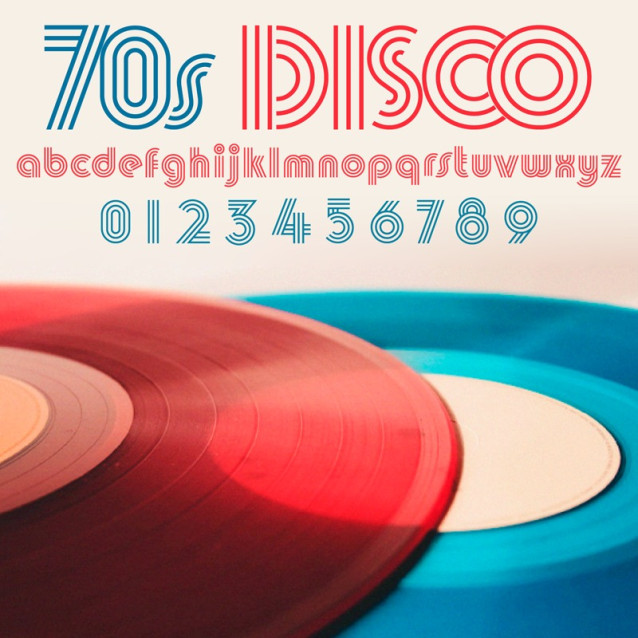
70s Disco Typeface
70s Disco Typeface a nostalgic multi-line font inspired by the 70’s aesthetic. Perfect for headers, can be used for text blocks also. This font could be the perfect solution if you want to give a lovely retro touch to your designs.